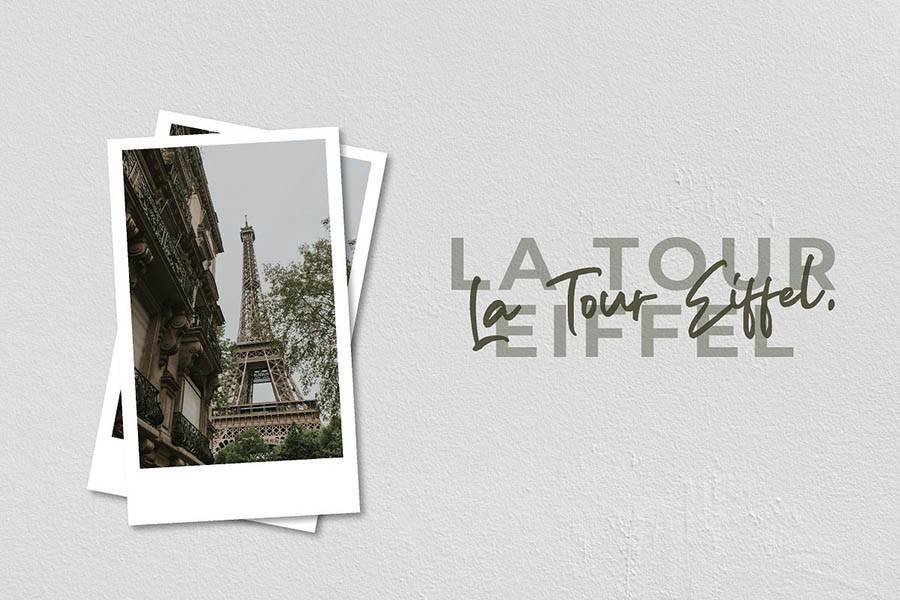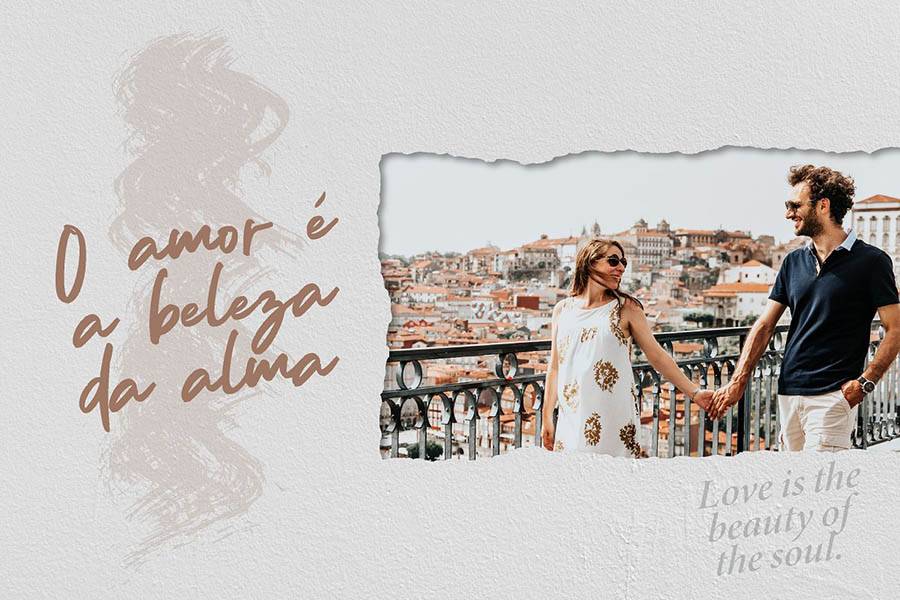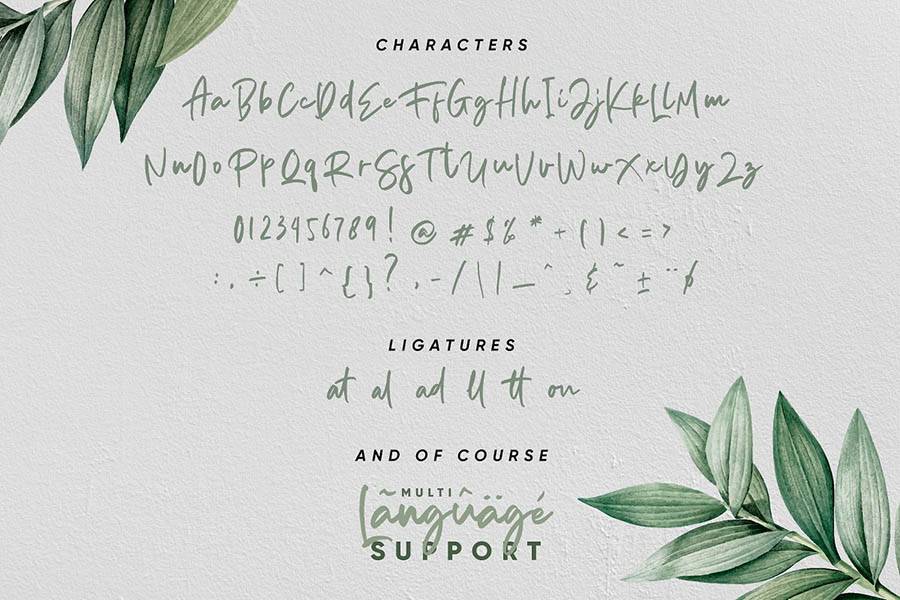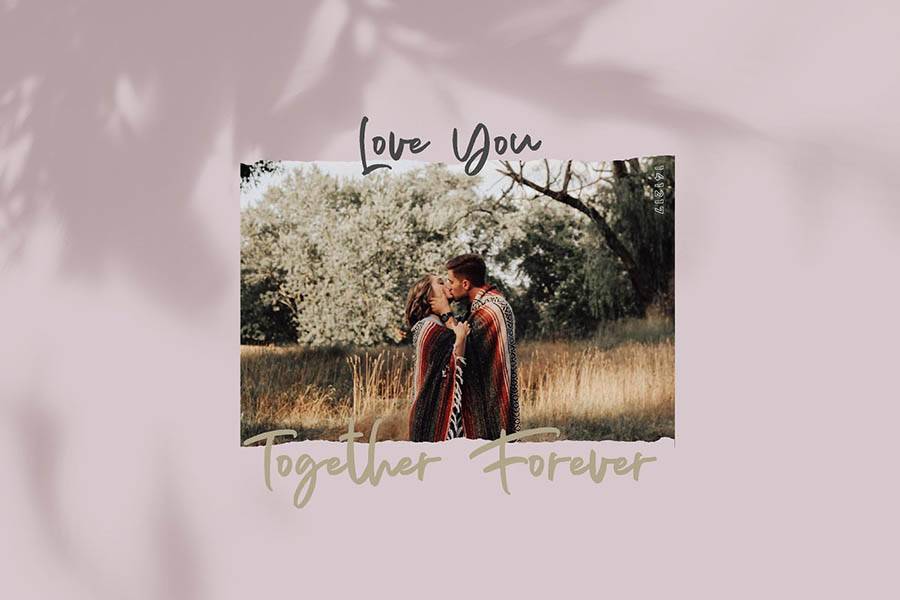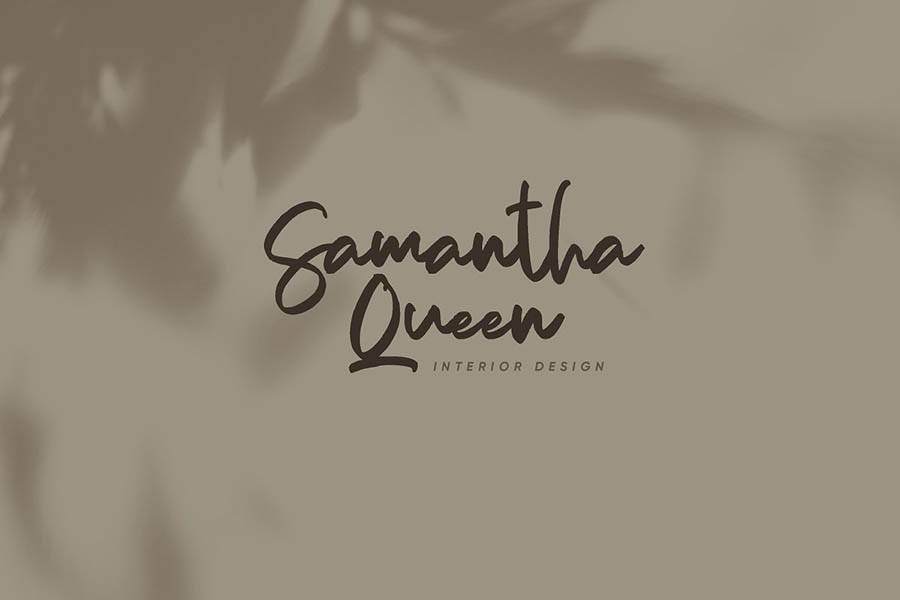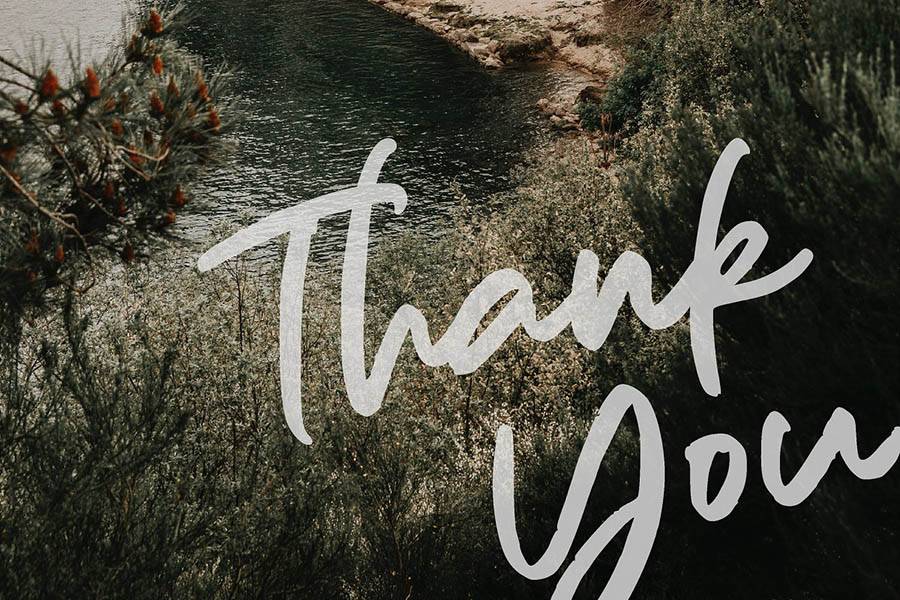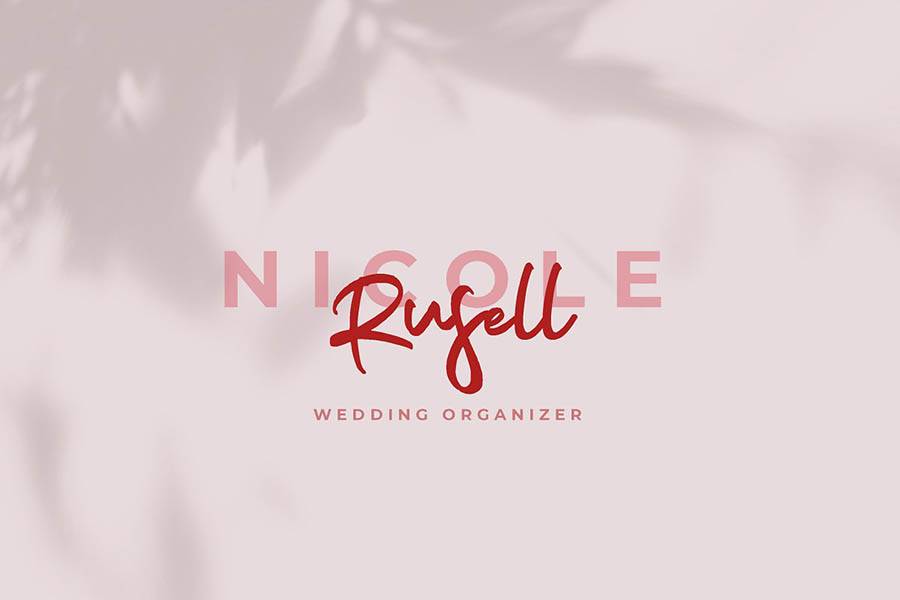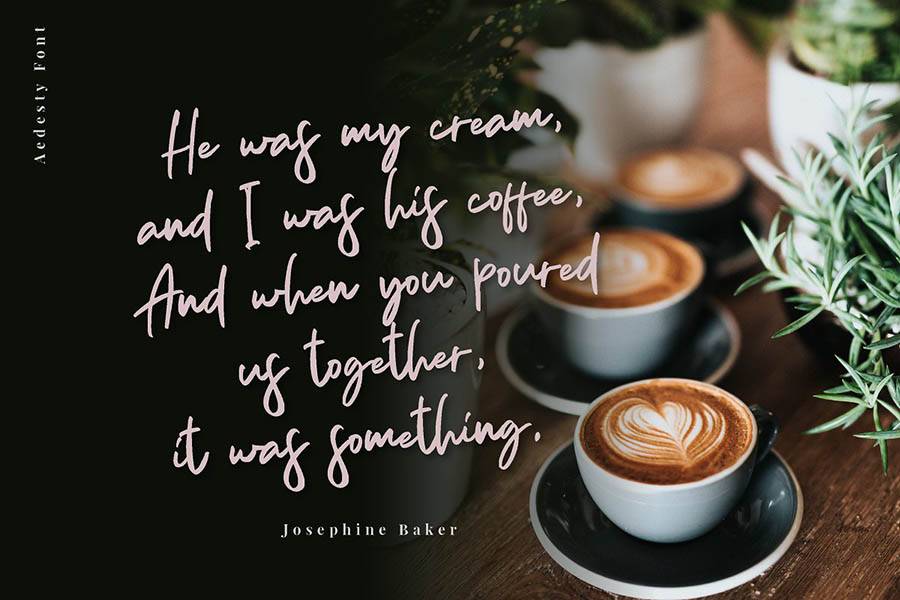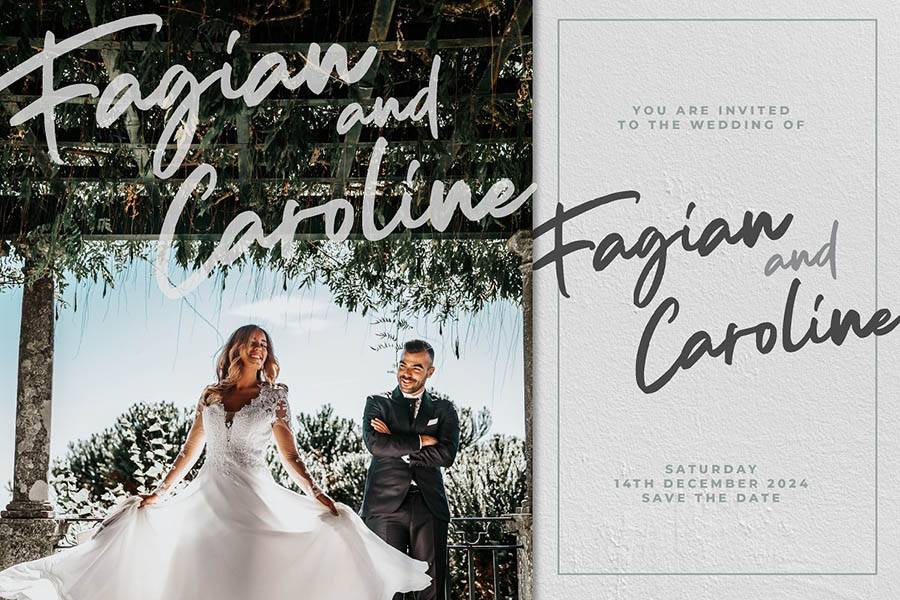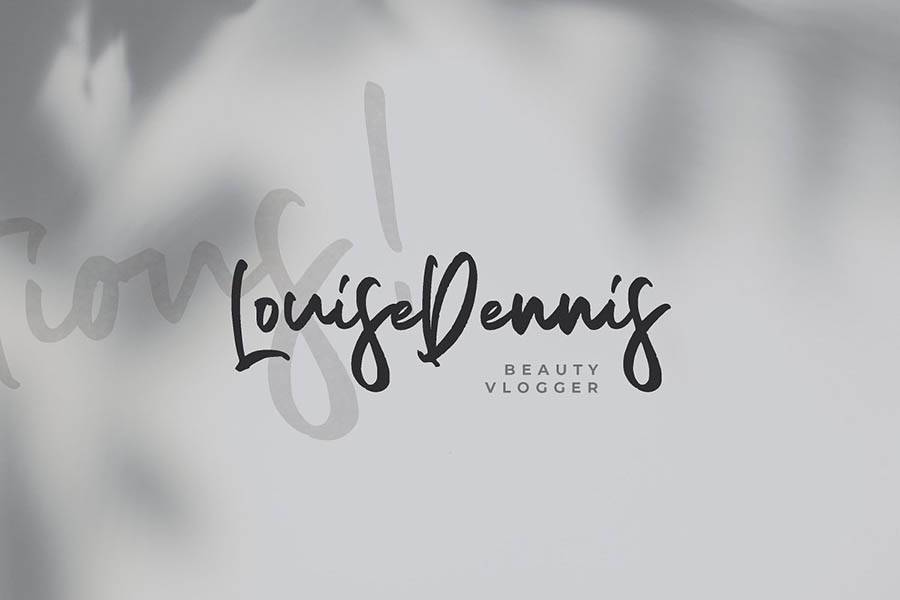
Aedesty Script Demo
Aedesty Script Demo is a natural handwritten font which perfect for your designs projects like logo, signature, invitation, stationery, wedding photo, watermark, social media post, advertisement, poster, product packaging, label, photography, event post, and other designs.